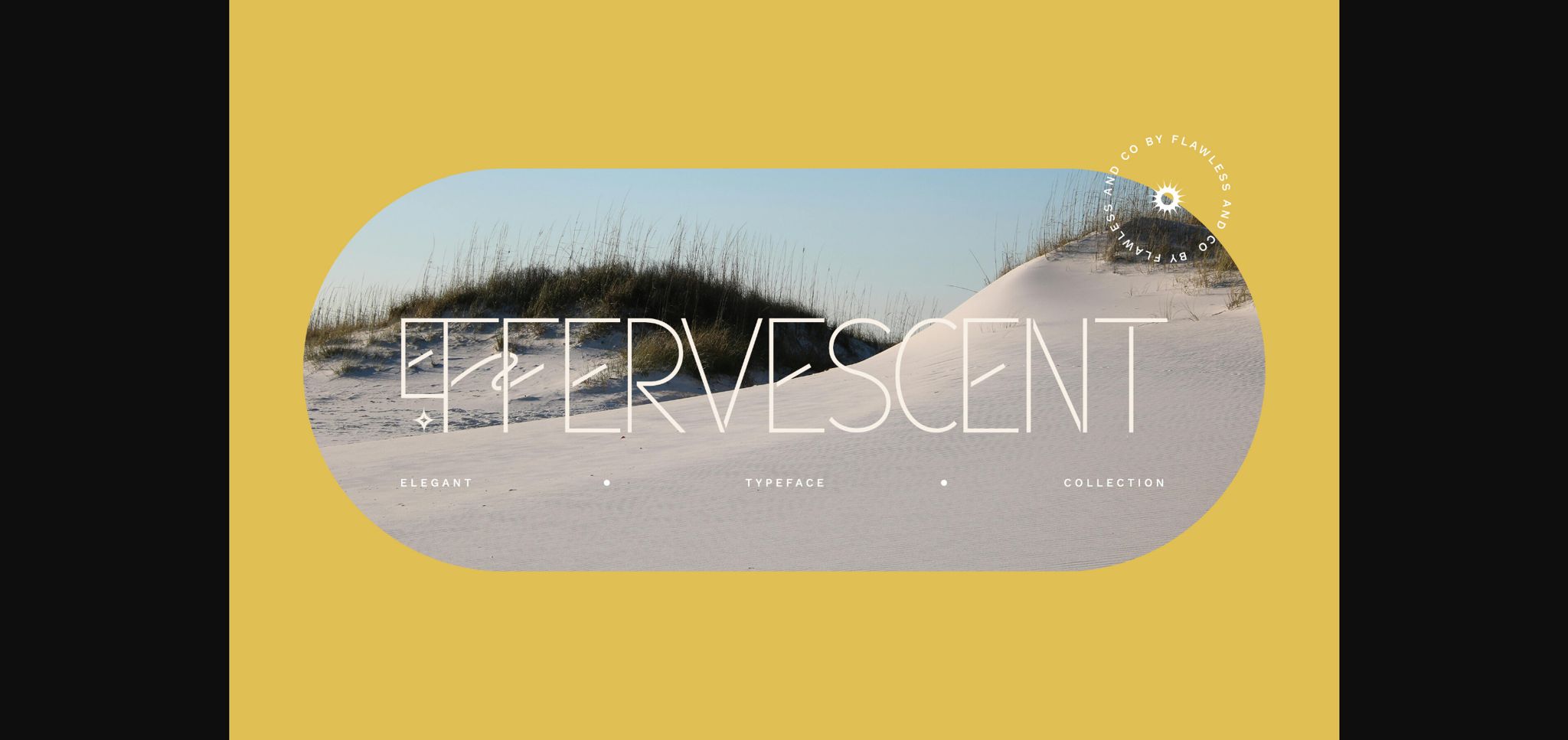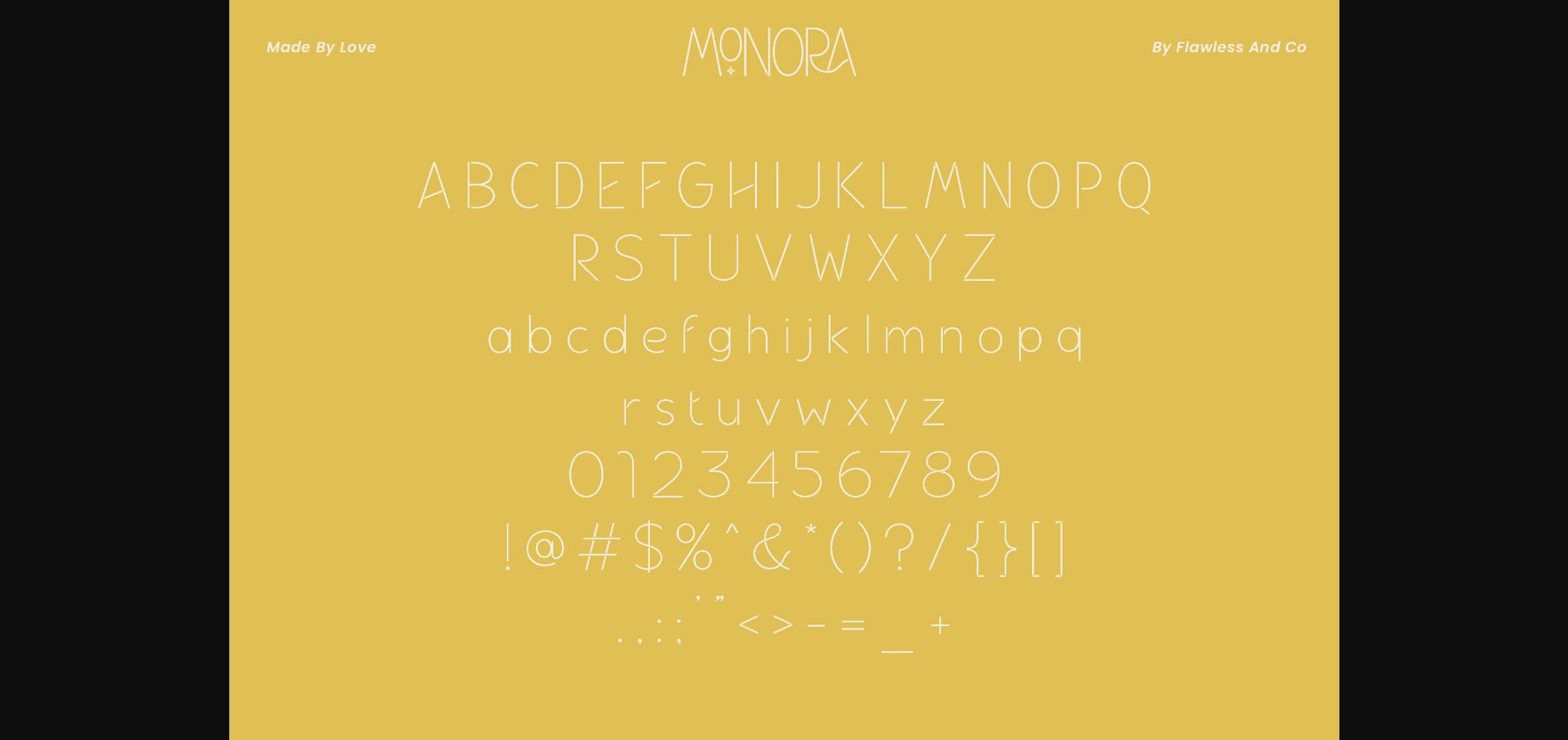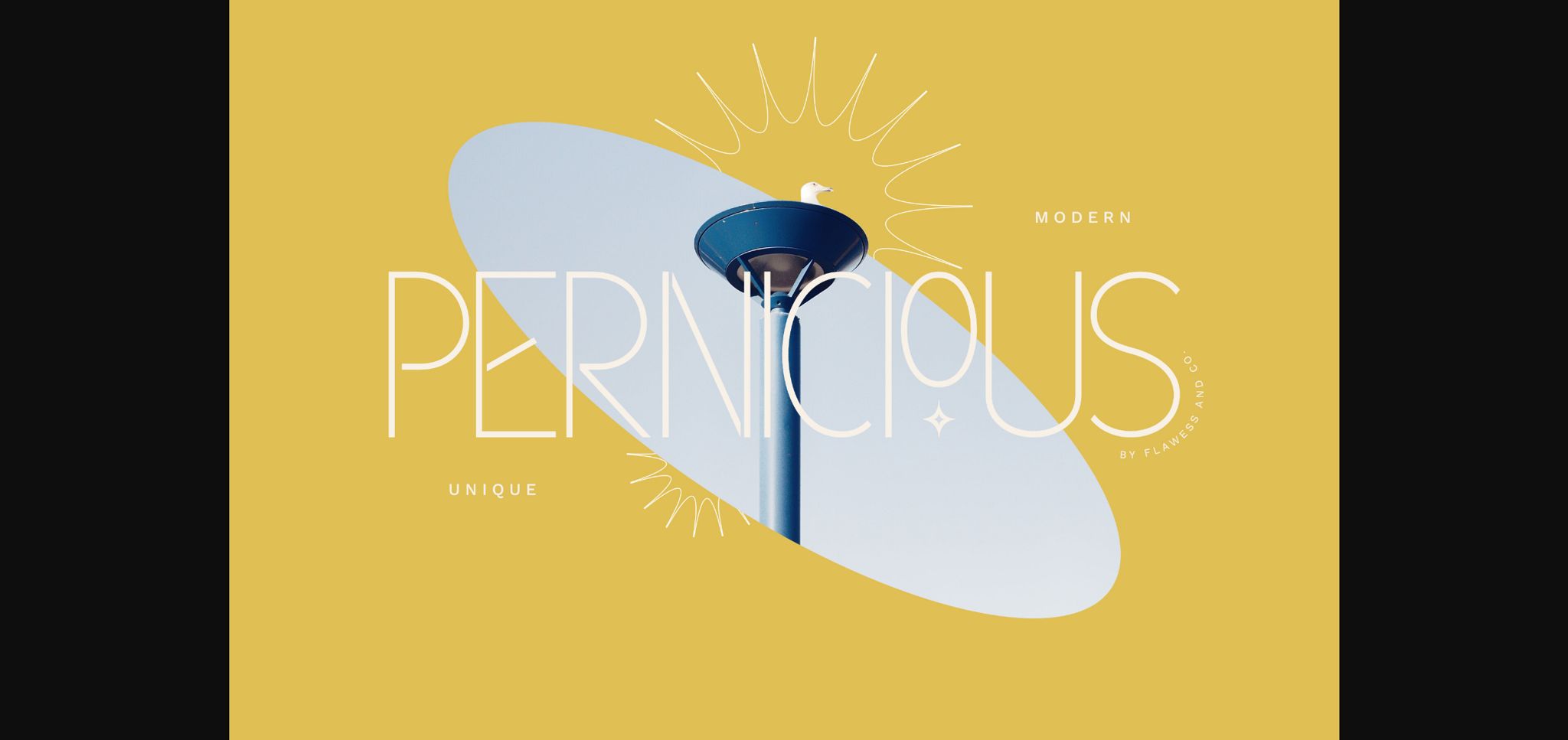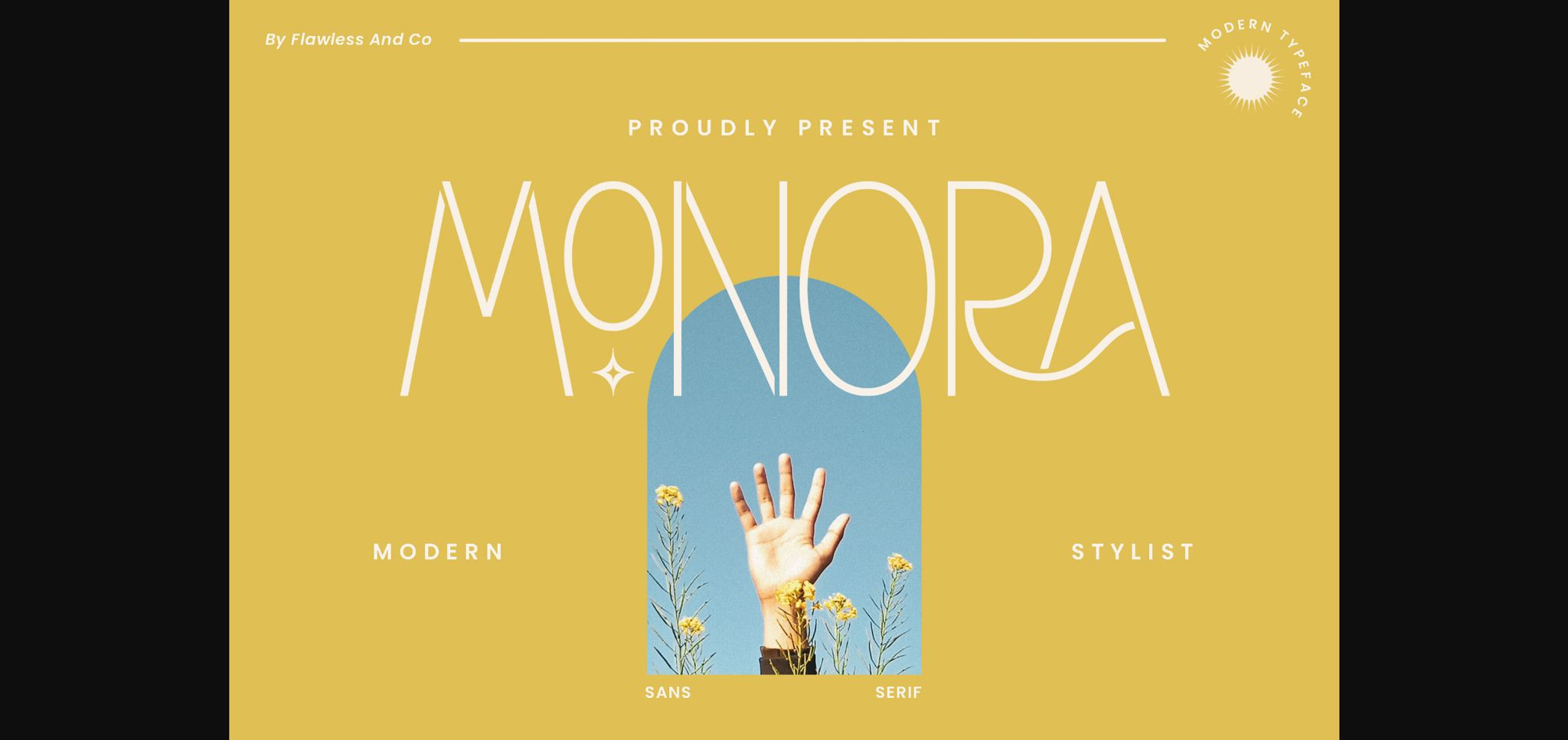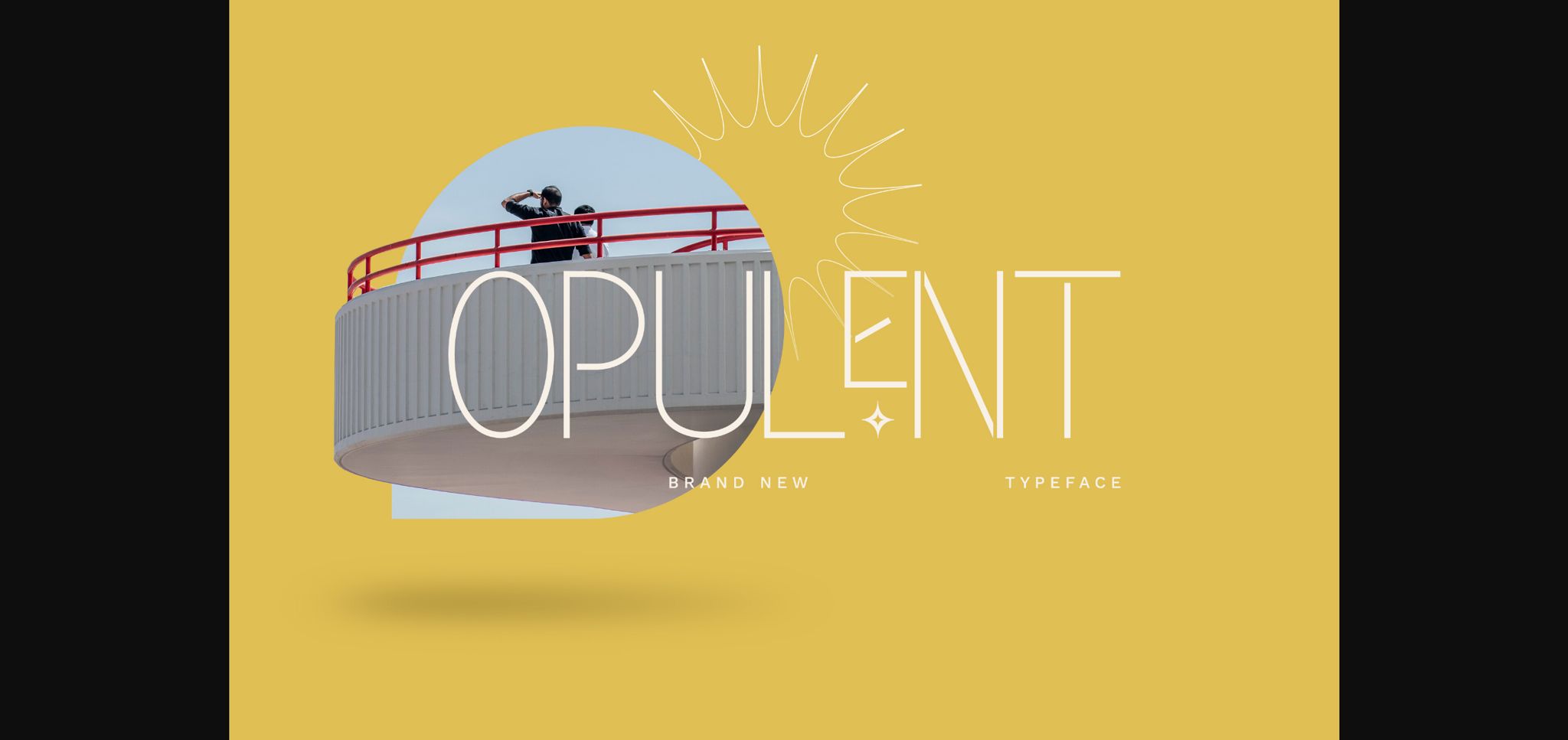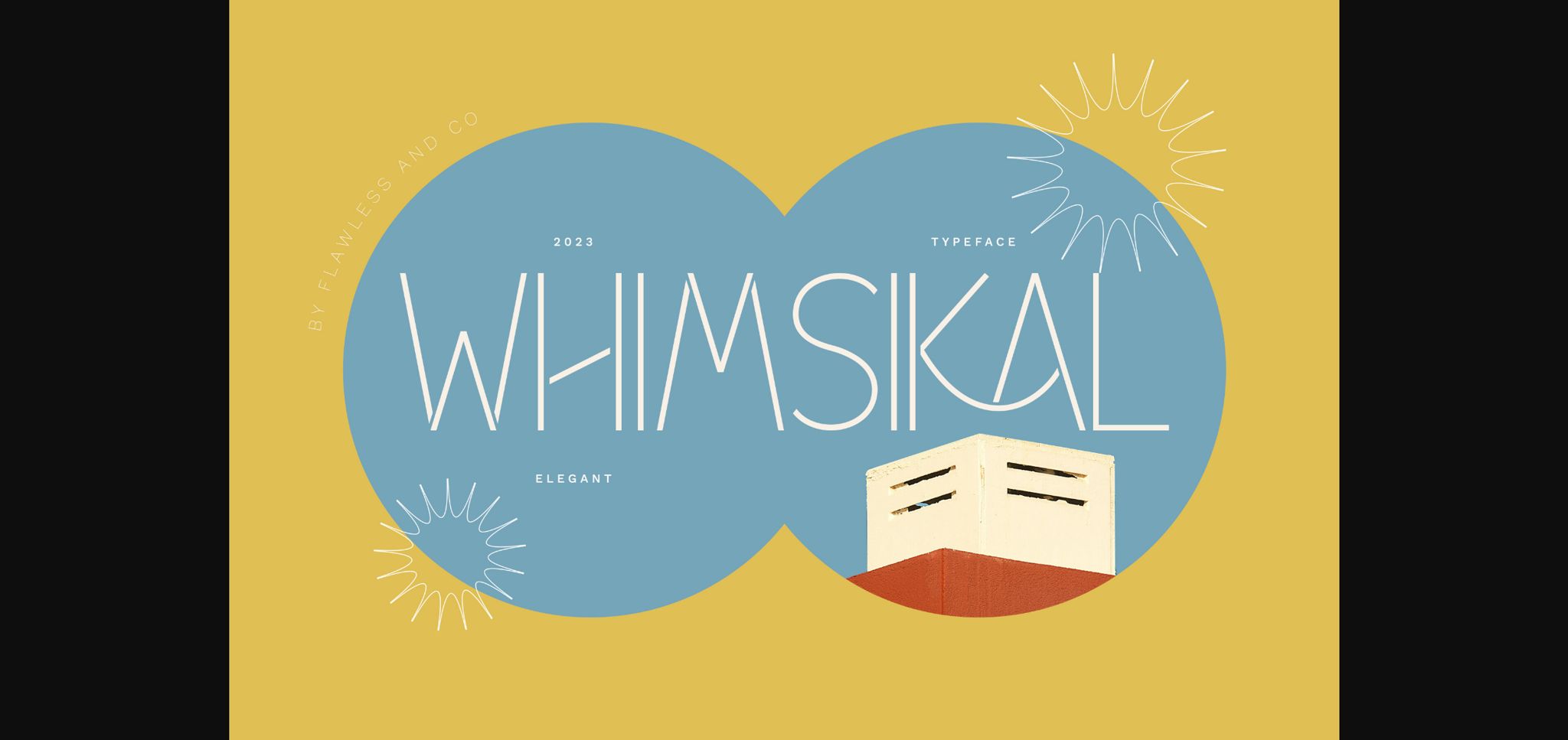
About Monora Font
Monora is a sleek and modern sans serif font that embodies contemporary design with clean lines and a minimalist aesthetic. With its versatile and neutral character, Monora is the perfect choice for a wide range of projects, from branding to editorial design. The font’s simplicity and clarity ensure readability, making it a reliable and stylish option for those seeking a modern and timeless typographic solution.